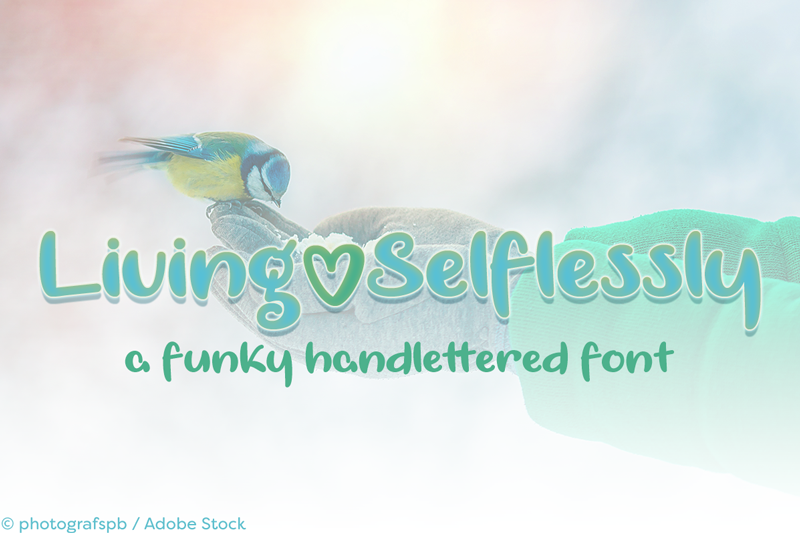
Living Selflessly Font
Living Selflessly Font is perfect for motivational posters, charity organization branding, inspirational quote graphics, book covers, church bulletins, nonprofit marketing materials, social media campaigns, greeting cards, personal development blogs, and community event flyers that aim to inspire positive action and compassion.
This font is exciting because it captures the essence of kindness and generosity through its warm, approachable letterforms that feel both genuine and uplifting. The design radiates authenticity and human connection, making it ideal for messages that encourage selflessness, compassion, and making a positive difference in the world.
The Living Selflessly Font family typically includes standard characters, uppercase and lowercase letters, numerals, basic punctuation, and special glyphs that add versatility to heartfelt messaging and inspirational content creation.
Whether you're designing for charitable causes, creating motivational content, or developing materials for community outreach programs, Living Selflessly Font Free Download provides the perfect typographic voice for messages that matter. Its sincere and welcoming appearance helps connect with audiences on an emotional level, making your designs more impactful and memorable while spreading positivity and encouraging acts of kindness throughout your creative projects.